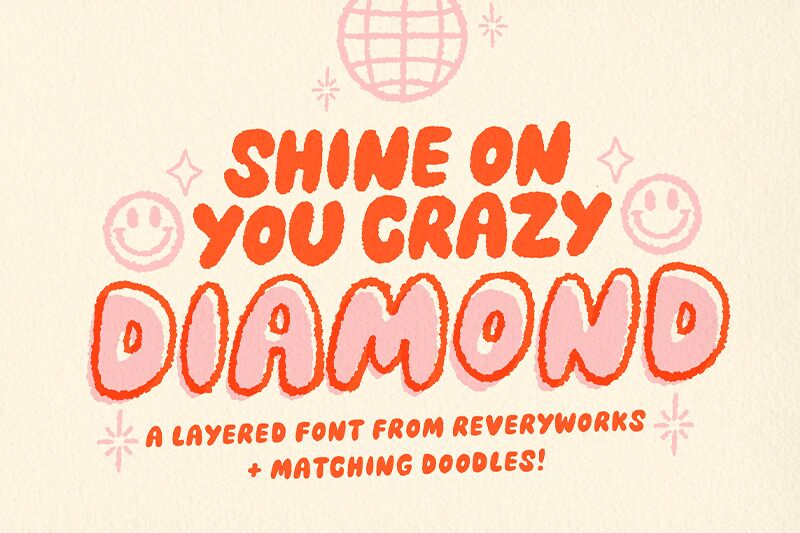
Crazy Diamon Outline font, created by ReveryWorks, evokes nostalgic charm. This playful bubbly cartoon typeface has a strong emphasis on high contrast with a bold outline, presenting readers with informal and whimsical style! It's modern take feels nostalgic yet grounded in classic construction, and it will capture attention with its rounded shapes and irregular spacing.
This display font is easily adaptable to whatever your project needs. Here are some of the things we think it's perfect for: children's books, marketing materials, conference branding, menus, video games.